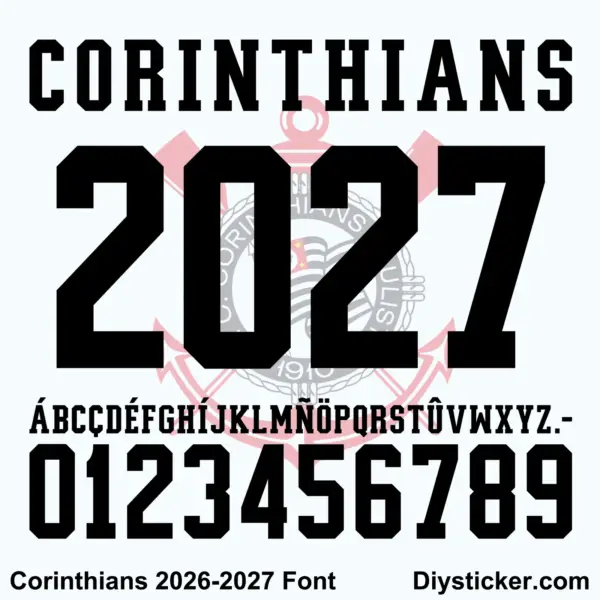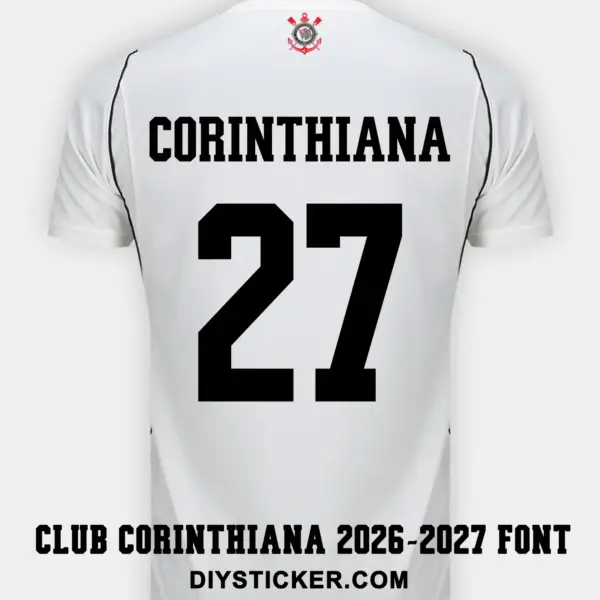
Corinthians 2026-2027 Font & Numbers Download
Bring the tradition and passion of O Timão to your custom sportswear setup! This digital typography file pack features the classic Corinthians 2026-2027 Font and Numbers in solid black, designed with traditional athletic slab-serif accents, squared geometry, and clean cutouts across numeric glyphs.
Complete athletic uppercase alphabet, squad numbers 0-9, and specific diacritic accents.
Elevate Your Kit Customization with the Corinthians 2026-2027 Font
Upgrade your custom sports apparel catalog with the definitive match-day look for Sport Club Corinthians Paulista! This digital typography product delivers the full Corinthians 2026-2027 font style designed for the upcoming Brasileirão and international tournament campaigns. Featuring bold, athletic varsity-style lettering with pronounced slab serifs, clean vertical proportions, and high-contrast block geometry, this layout ensures maximum legibility against the iconic white home shirt backdrop.
Comprehensive Character Mapping
Your instant digital download includes a complete alphanumeric asset set configured to exact kit specifications:
A-Z Uppercase Alphabet: Heavy, slab-serif block letters built for high pitch visibility and clean spacing across player nameplates.
0-9 Custom Squad Numbers: Bold, angular numeric glyphs with defined serif terminals and clean inner negative space.
Special Accents & Diacritics: Complete set of punctuation marks and international accents (
Á,B,Ç,É,Ñ,Ö,Û, etc.) to accurately render names for star players.